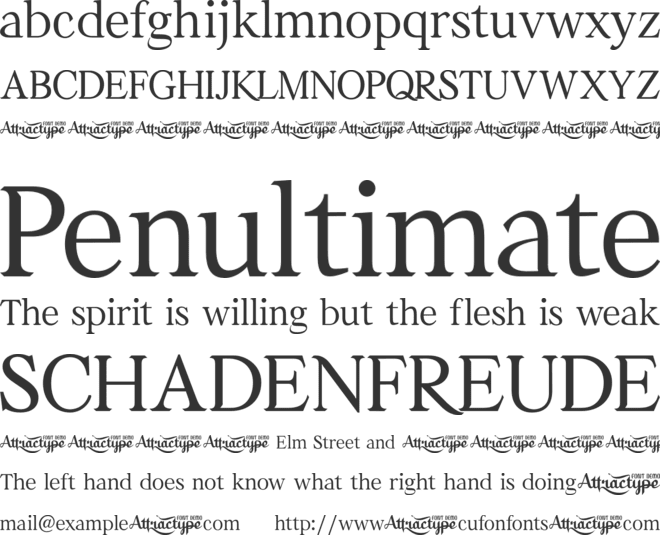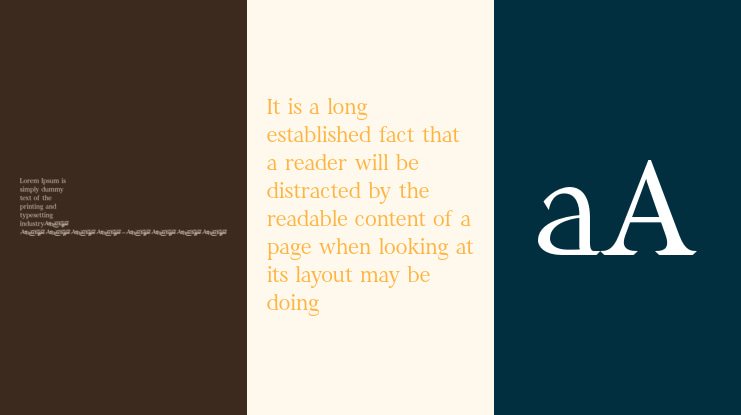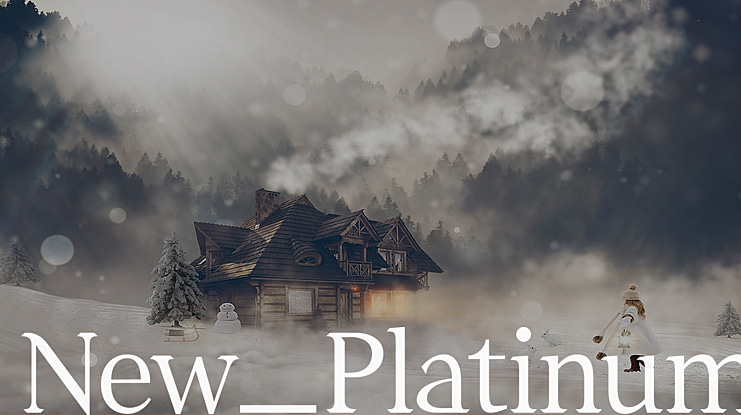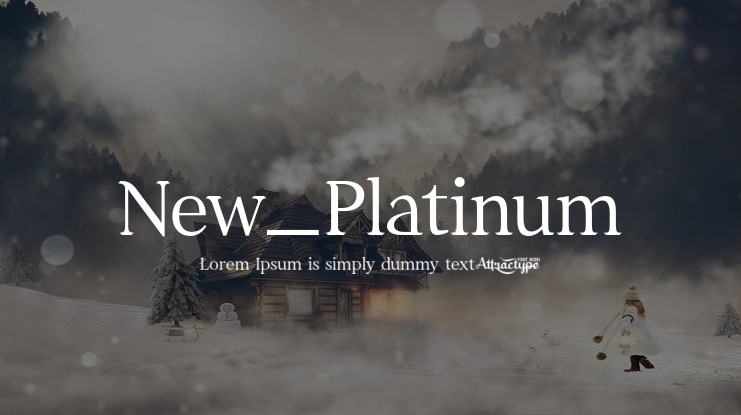
New_Platinum Font
This is modern serif font with good style. New platinum includes a Multilingual option to make your branding globally recognized.
New Platinum perfect for headings, text, logos, business cards, printed quotes, invitations of all sorts, advertisements, product packaging, UI/UX design, and your website or social media branding.